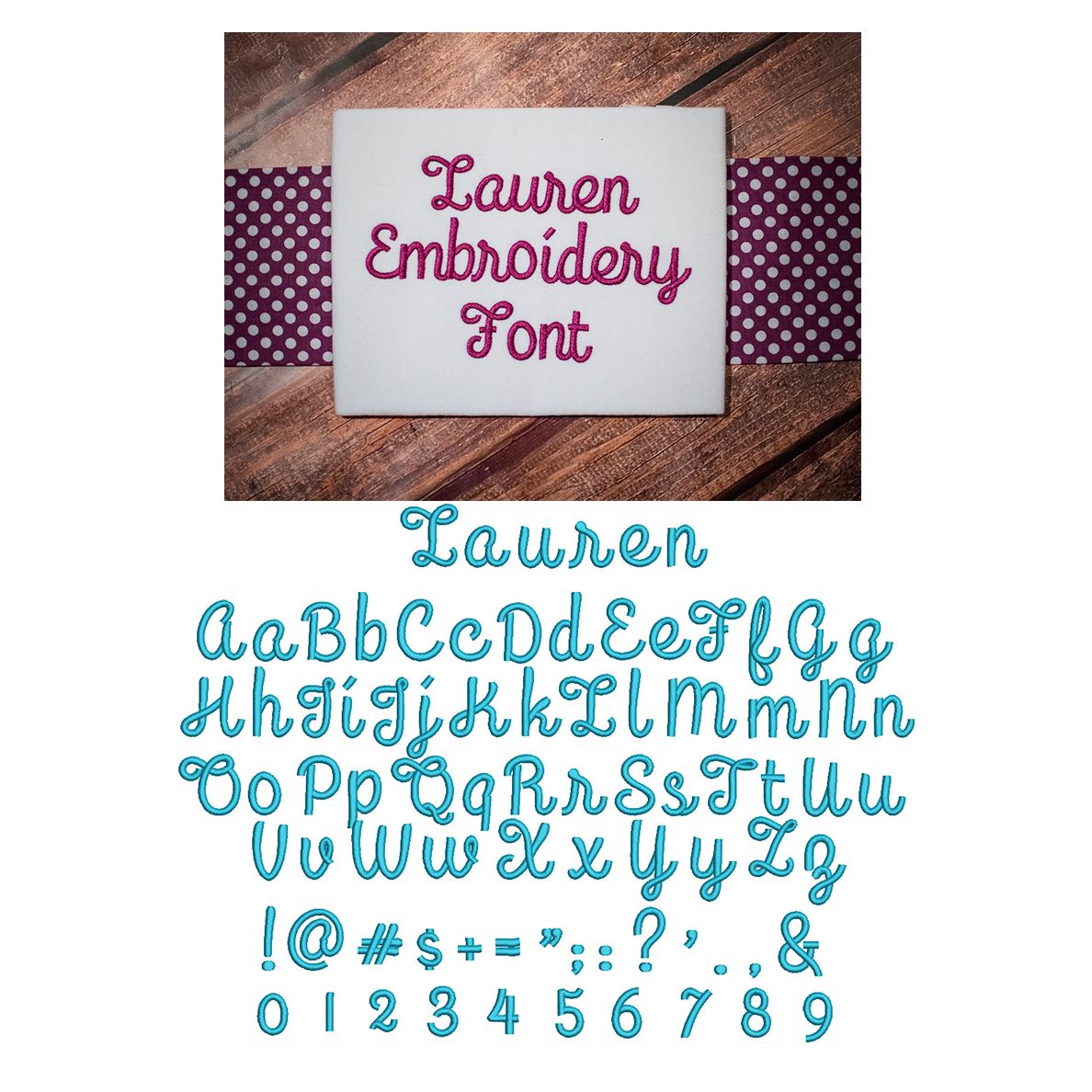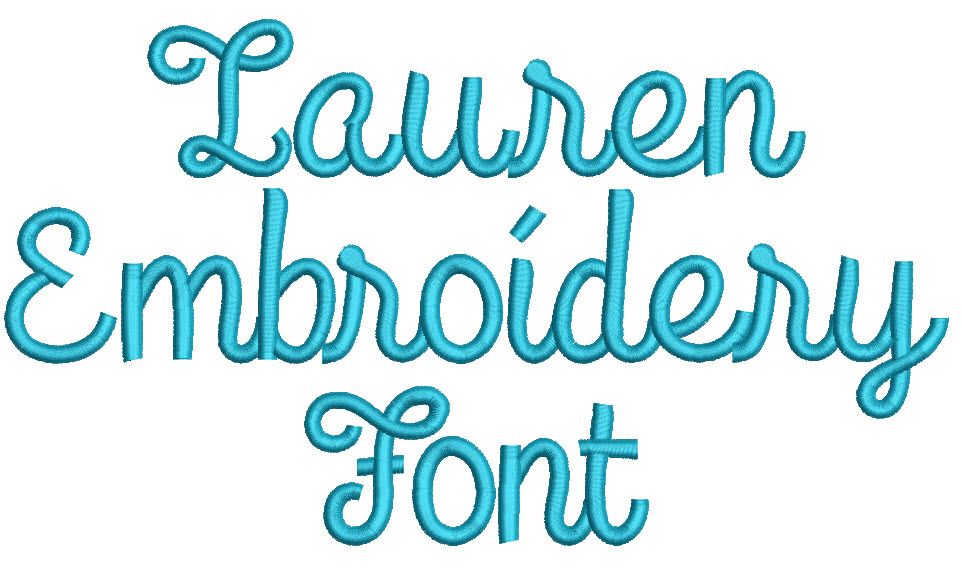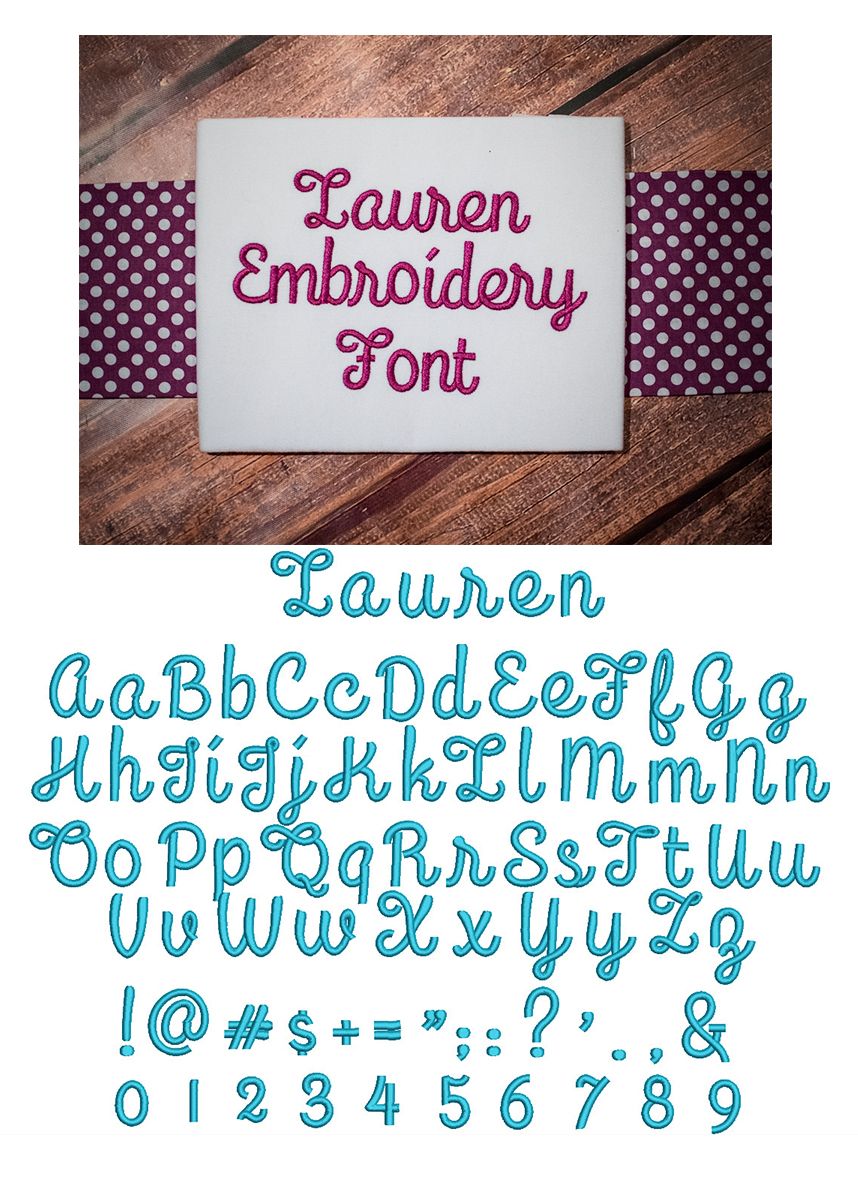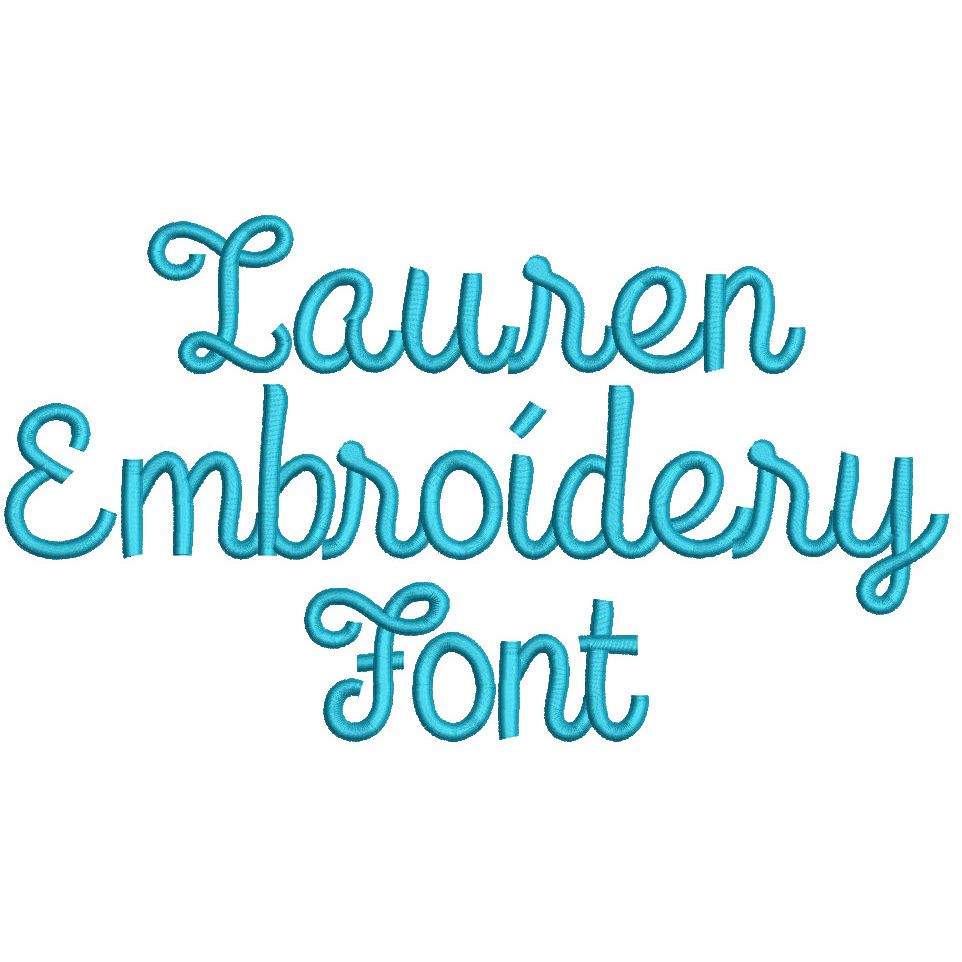
Lauren Script Satin Stitch Embroidery Font
Lovely brush script font!  All of our font alphabets are 100% manually digitized to bring you maximum stitch quality.